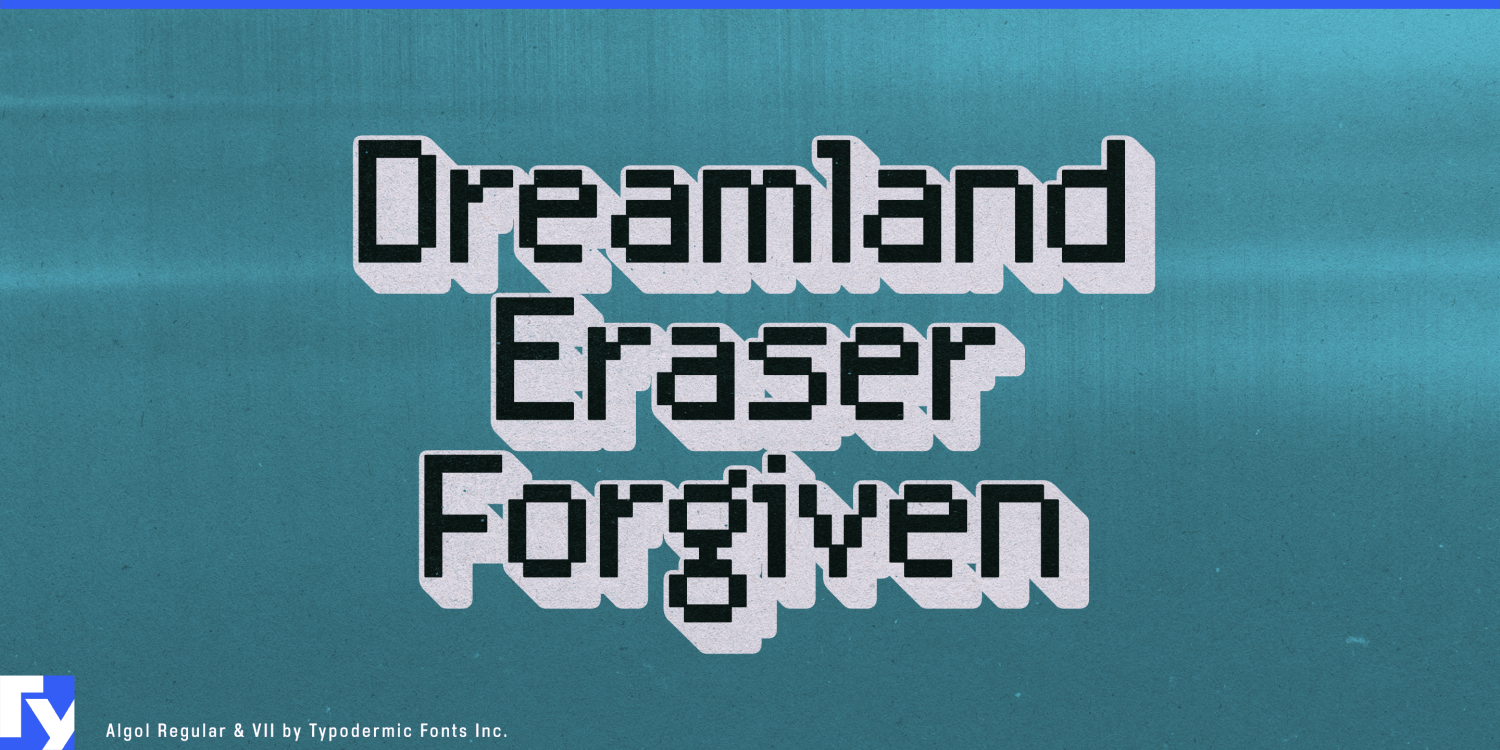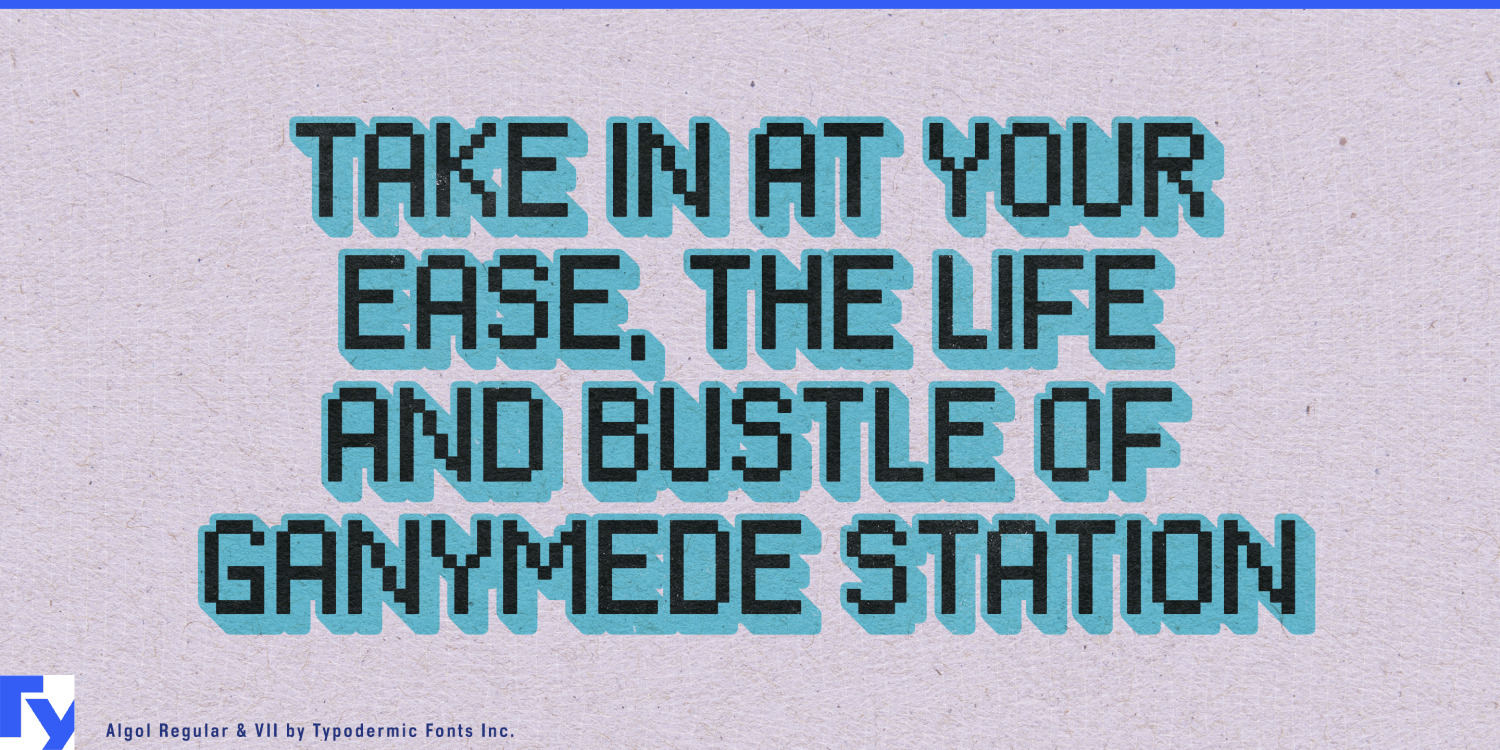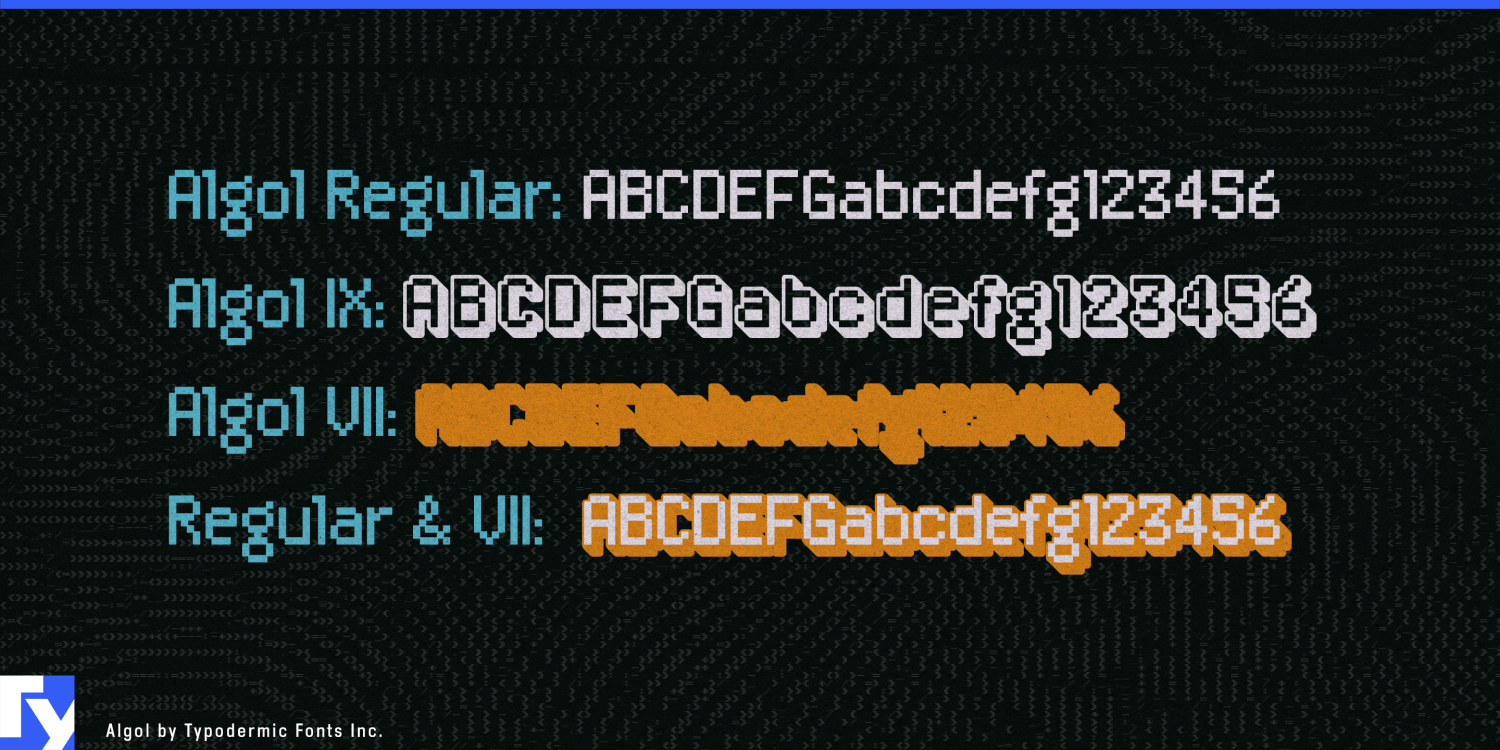
Introducing Algol, a low-resolution display typeface that reimagines classic computer pixel fonts with a contemporary twist. This innovative font family from Typodermic Fonts blends nostalgia with modern design sensibilities, creating a unique typographic…